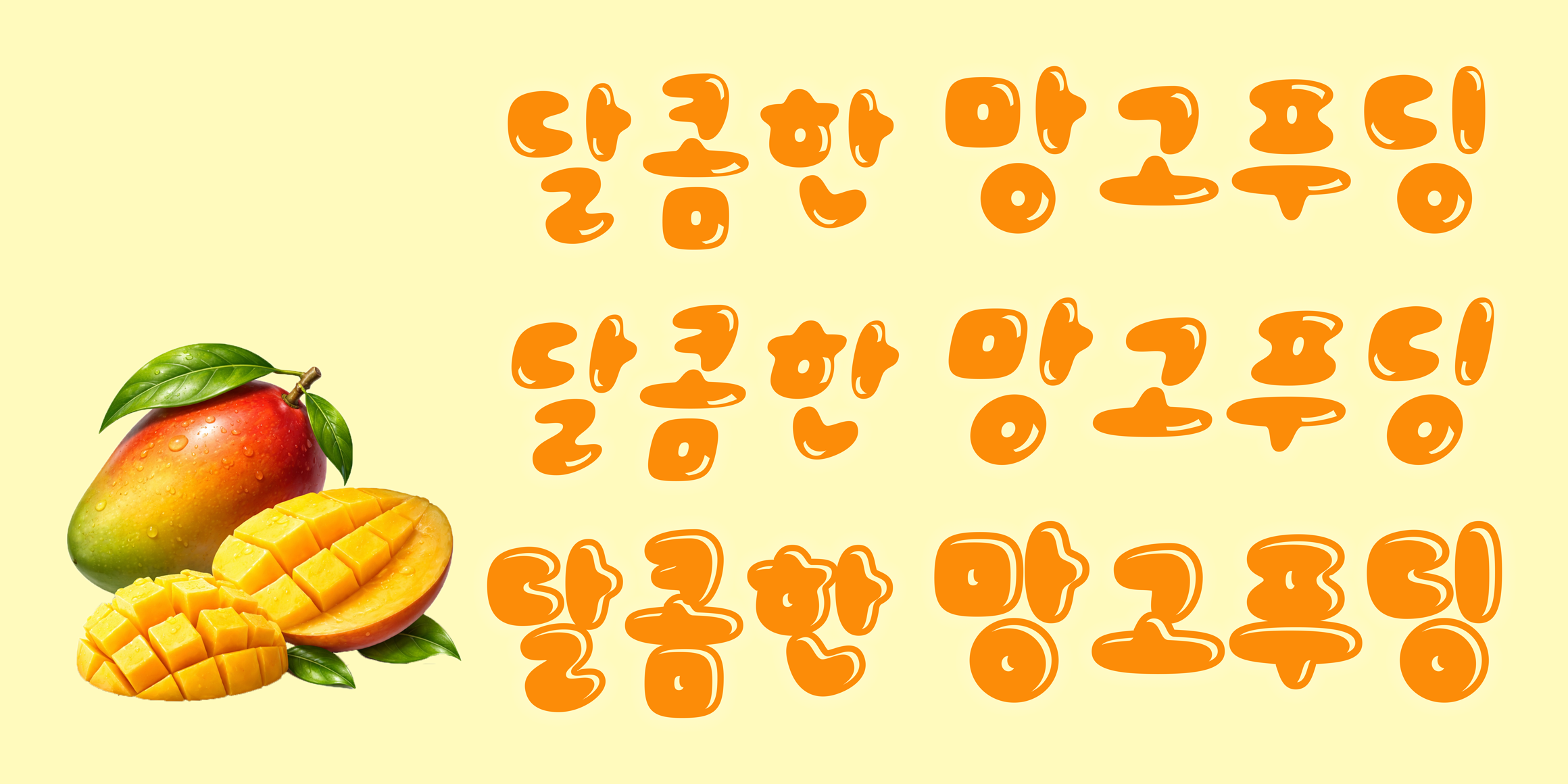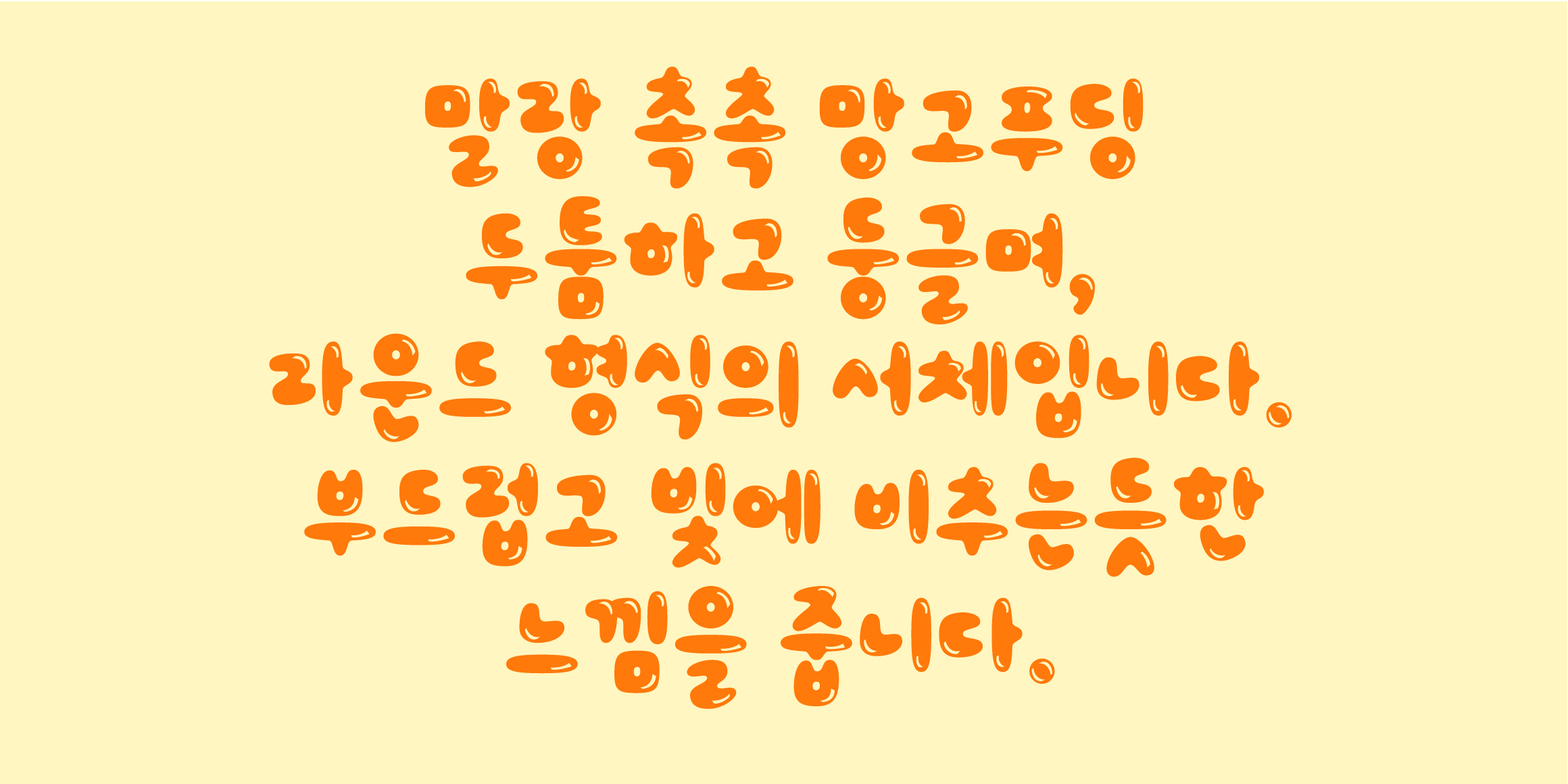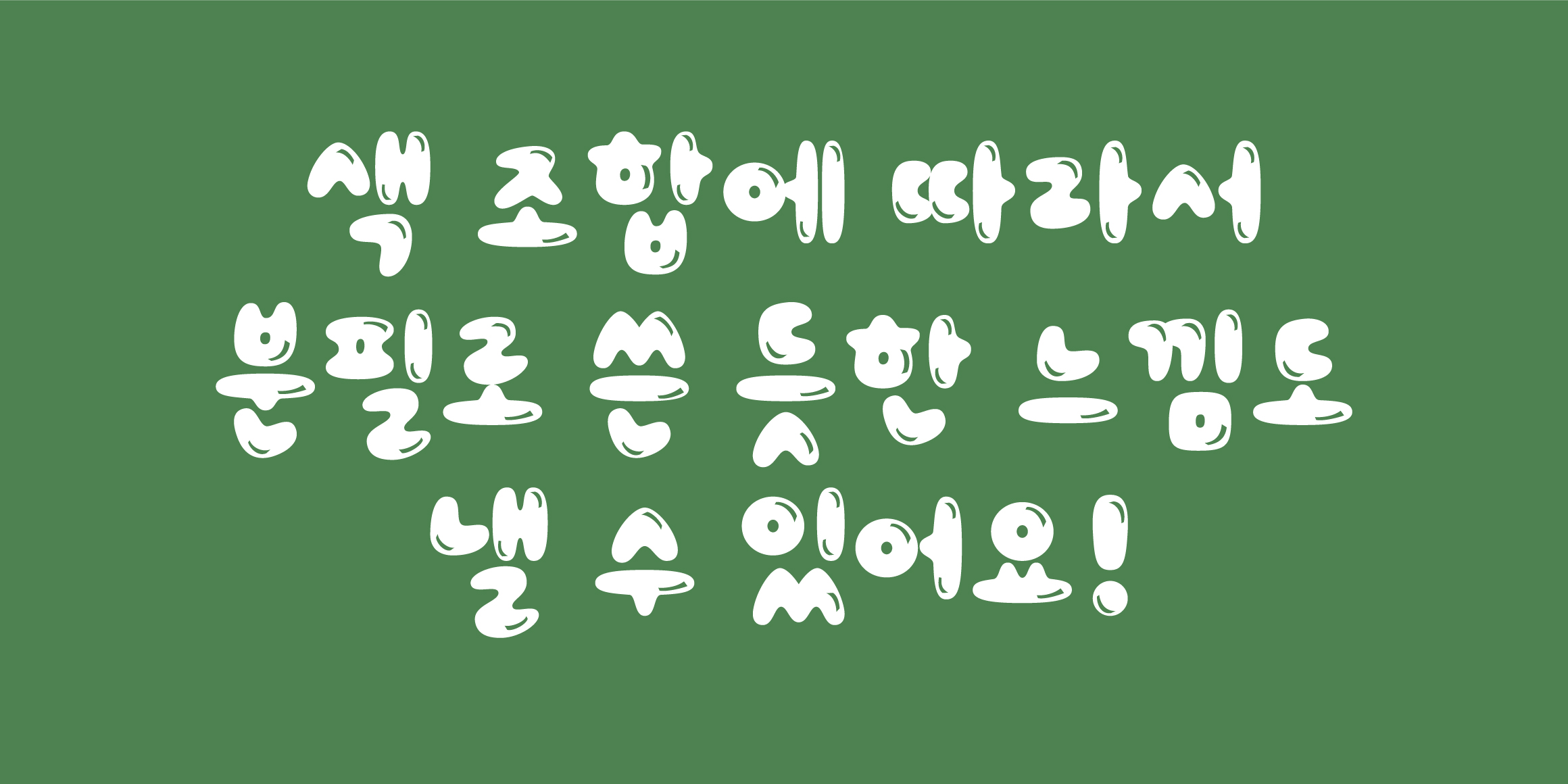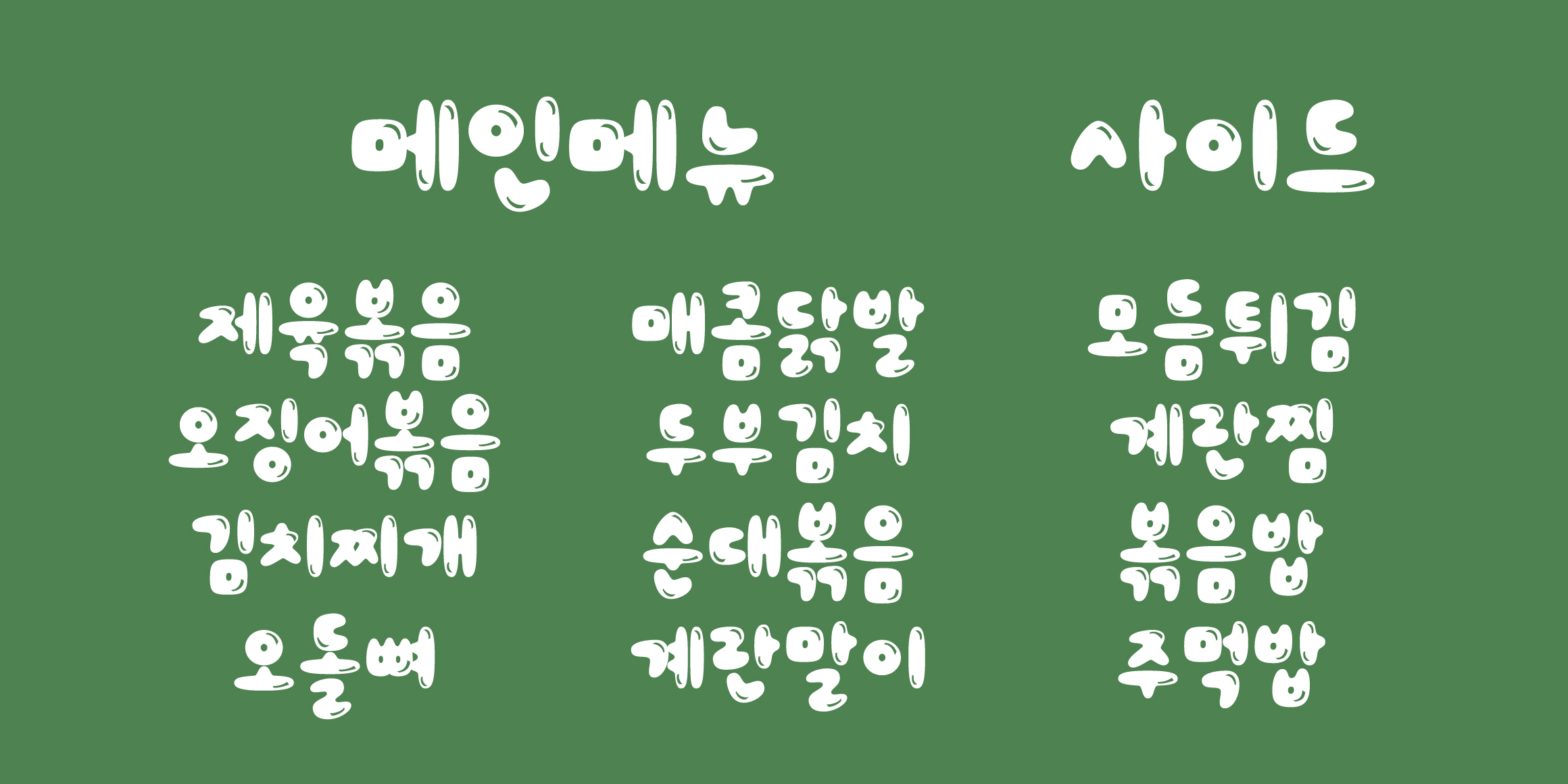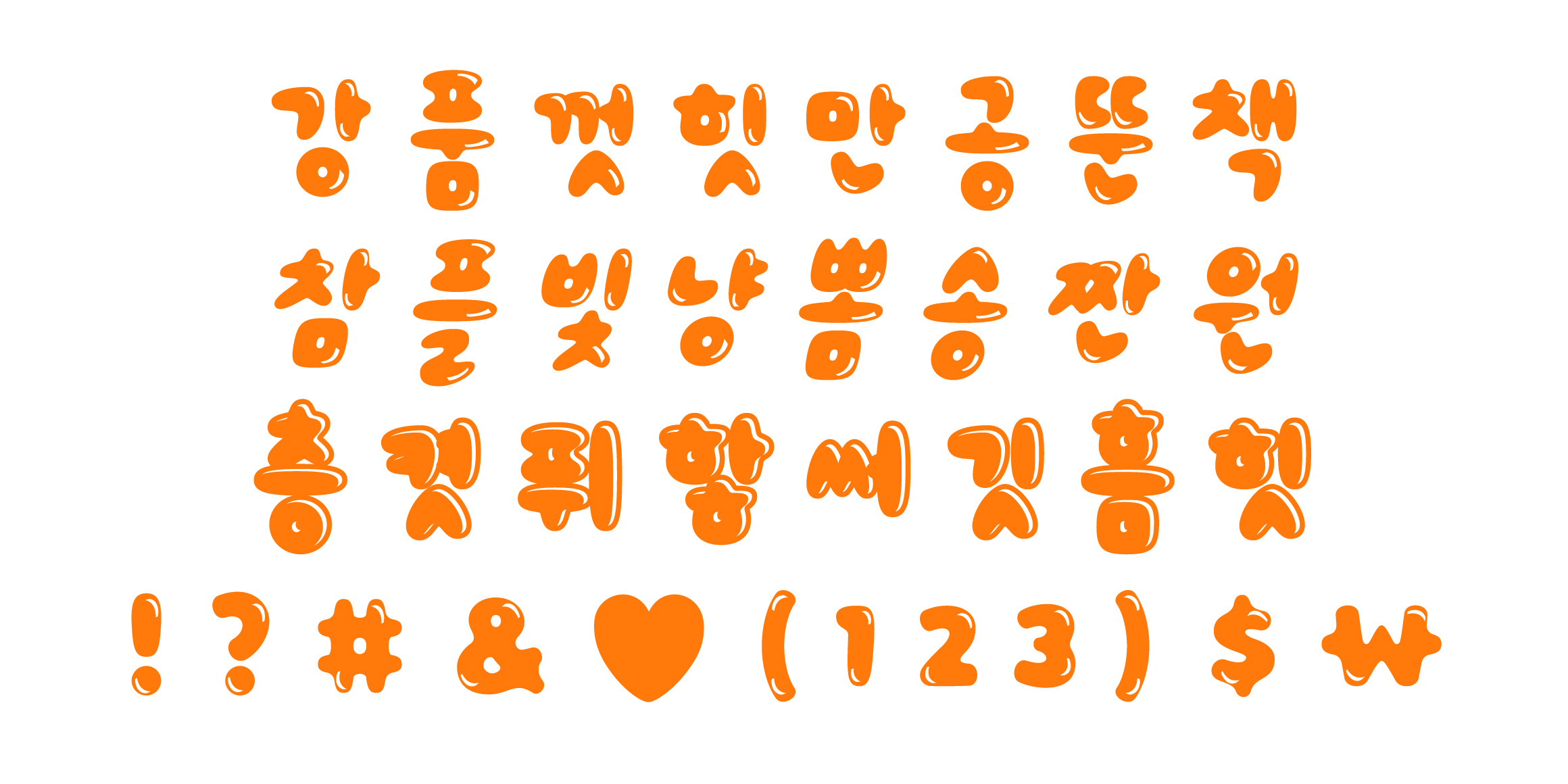
DXMangoPudding
I tried to express softness and moisture in the letters.
Therefore, the strokes are thick and round, and the corners are also rounded, so you can feel the sweetness and softness, and you can feel the reflection of the light, so the style of the letters stands out even more.
It is very suitable for BI or signage of the product, and if you use it for video subtitles, it will be a unique video.